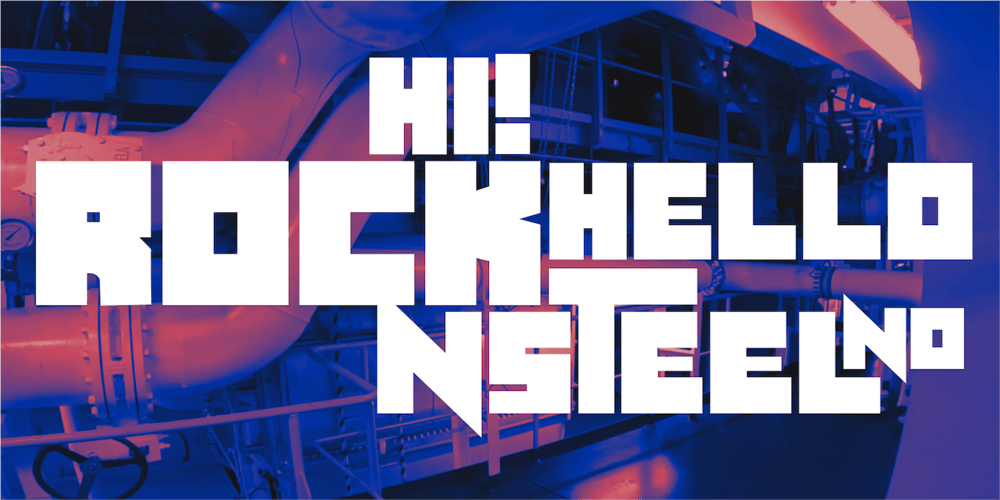
Nsteel Font Family was designed by Wahyu Eka Prasetya, Afiat Sukmaraga and published by Hati. Nsteel contains 1 styles and family package options. Introducing Nsteel a bold and industrial font that features very sharp corners and thick strokes, giving it a commanding and authoritative presence. This typeface is designed with an industrialist style, making it perfect for projects that require a strong, modern, and impactful design. The sharp corners provide a crisp and precise look, while the overall thickness of the strokes adds to the font’s robust and solid character. Ideal for branding, logos, posters, and packaging, this font excels in creating a tough and powerful visual identity. Its industrial aesthetic makes it well-suited for designs that need to convey strength, durability, and a modern edge. Whether you’re working on a tech-related project, urban branding, or any design that demands attention, this font’s bold and dynamic style will ensure your work stands out with a distinctive, industrial vibe.